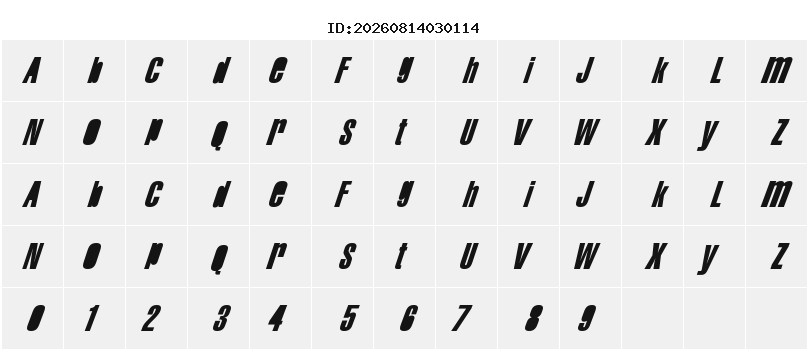
• Font Name: Swis AntiNormal Condensed
• Full Font Name: Swis AntiNormal Condensed Normal
About Swis AntiNormal Condensed.ttf
Swis AntiNormal Condensed.ttf is a modern, elegant sans-serif font designed for ultimate readability and visual harmony. Perfect for branding, headlines, web design, and print materials.